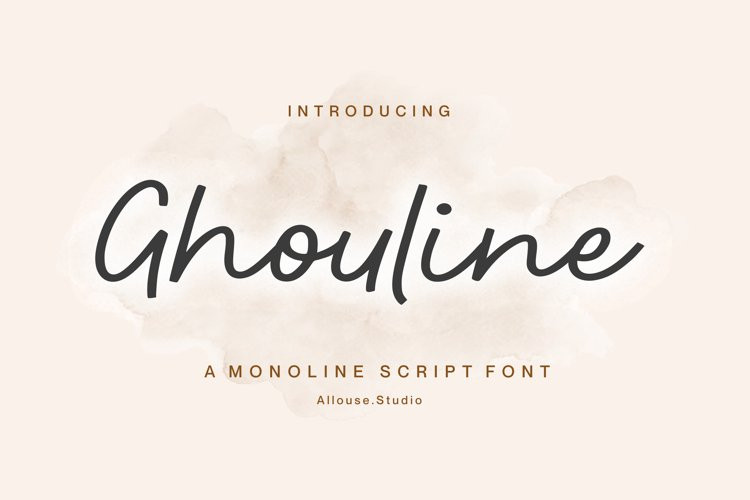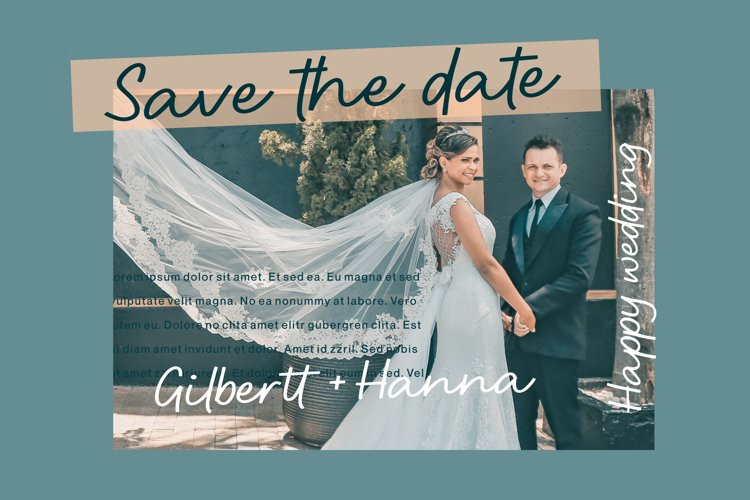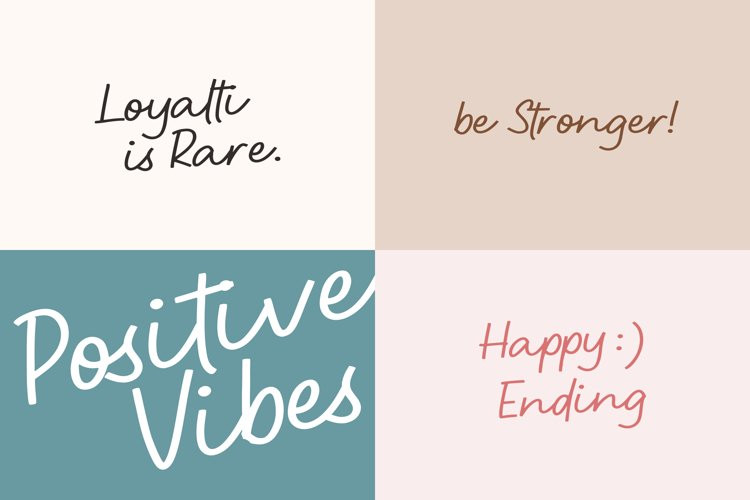
Ghouline Font
Ghouline FontGhouline is perfect for product packaging, branding project, megazine, social media, wedding, or just used to express words above the background.